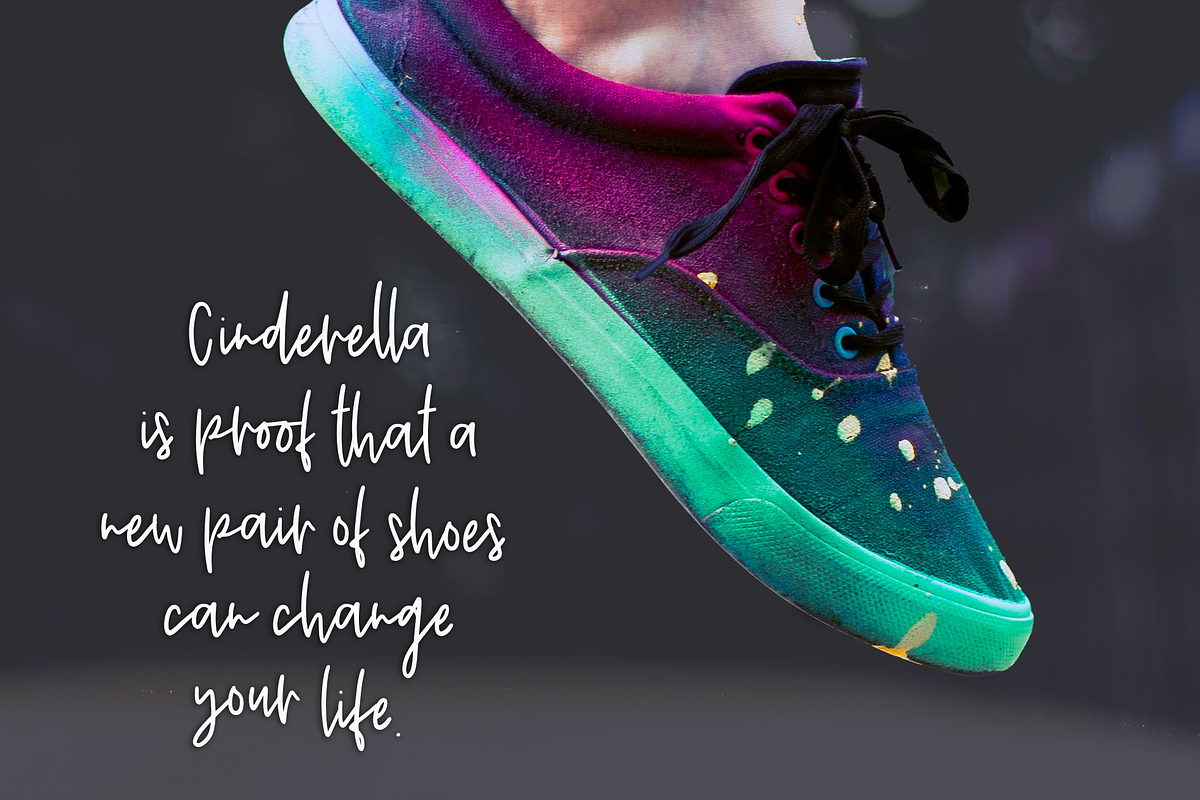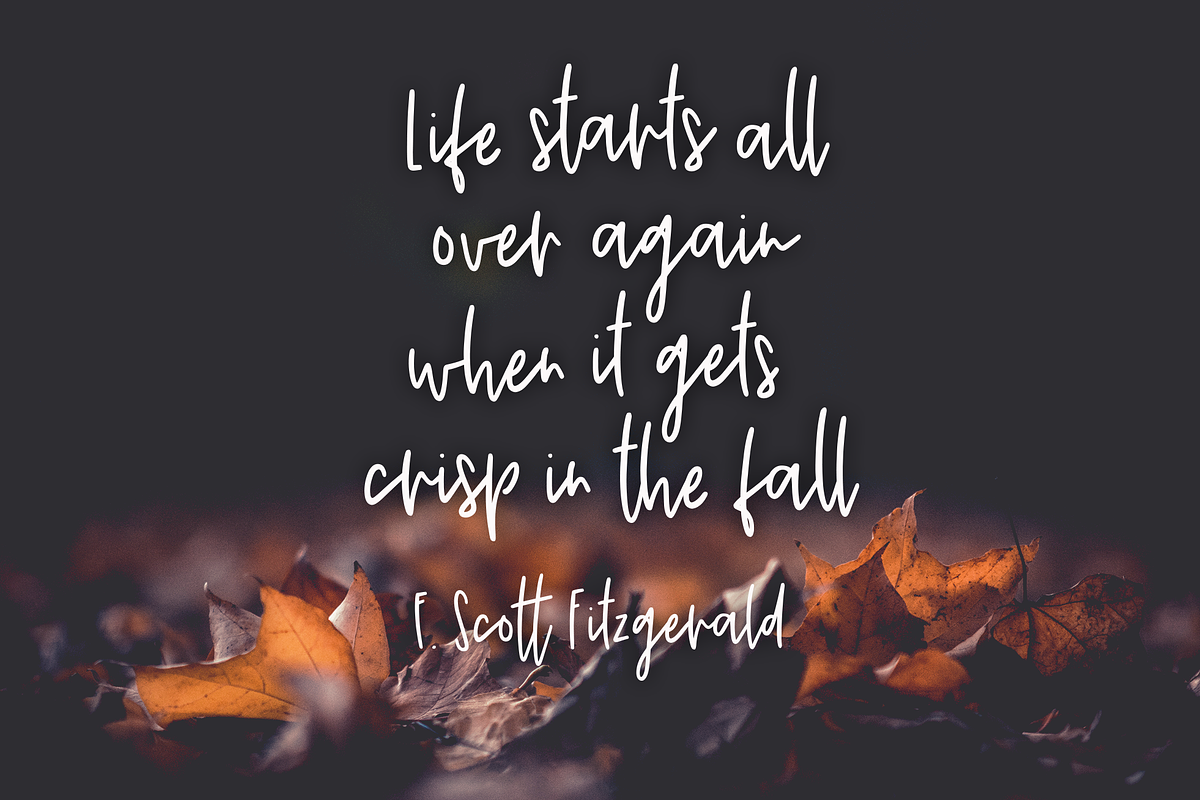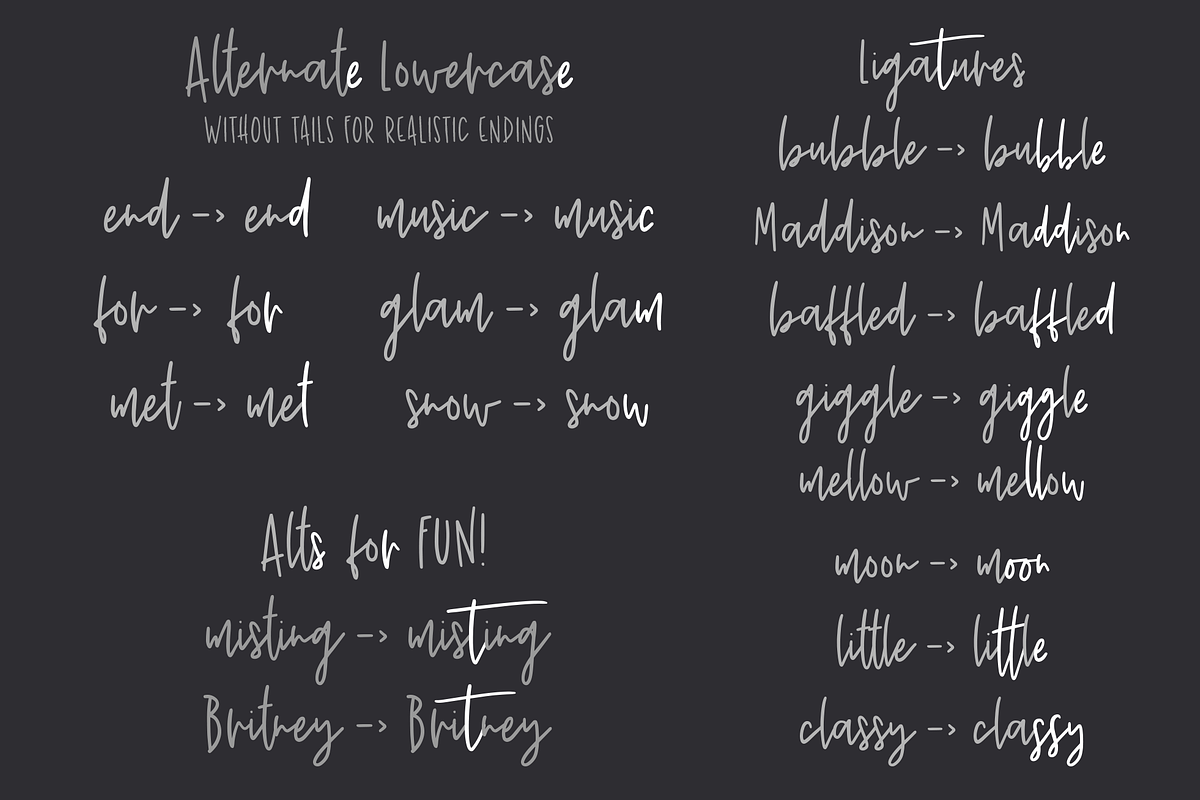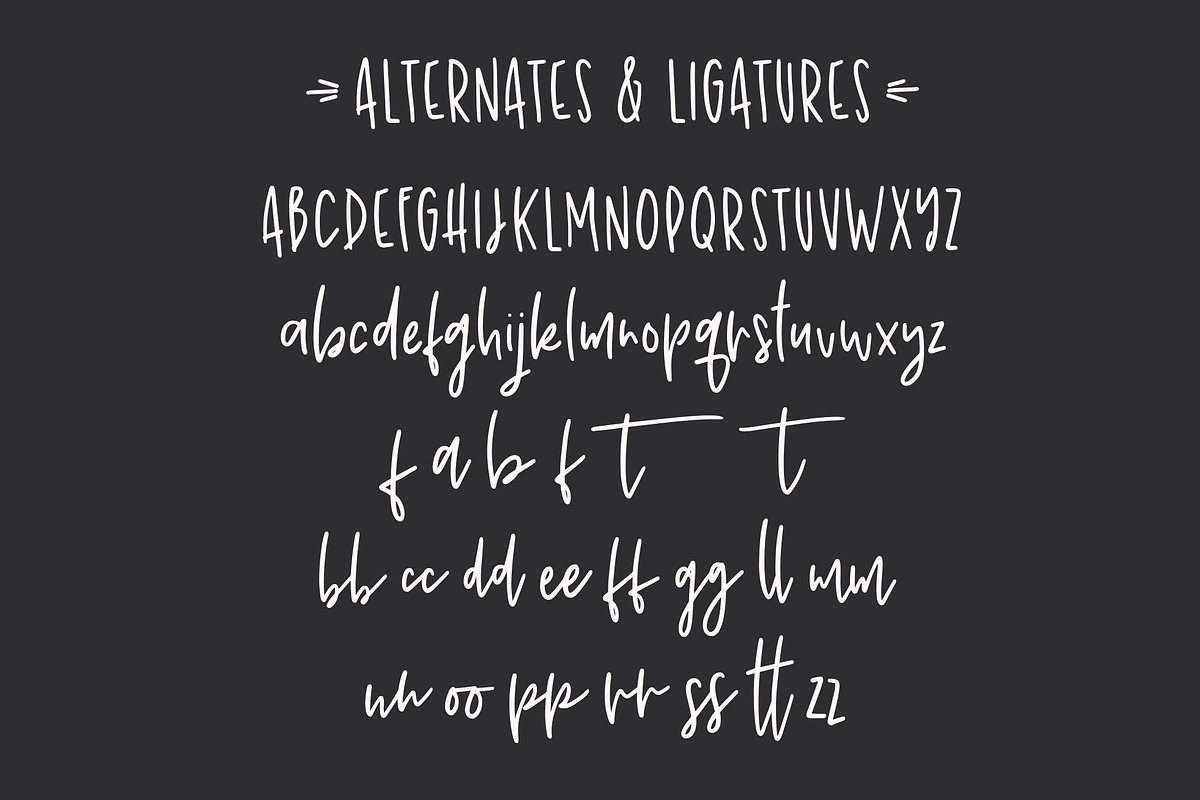
Shoelace Scrawl, a handwriting font
Shoelace Scrawl is a loose, casual handwriting font that feels natural and spontaneous—like a quick scribble in the margin of a notebook. With its slightly messy lines and hand-drawn charm, it's perfect for journals, quote graphics, greeting cards, and personal branding.
This font adds a laid-back, handwritten feel to any project that calls for authenticity, personality, and a human touch.
Alternate lowercase letters without exit strokes, for a more natural end to words. They can also be used mid word just for fun.
- Upper case alternate alphabet - with a more uniform height
- Alternate lowercase t's with long crossbars.
- Double letter ligatures!